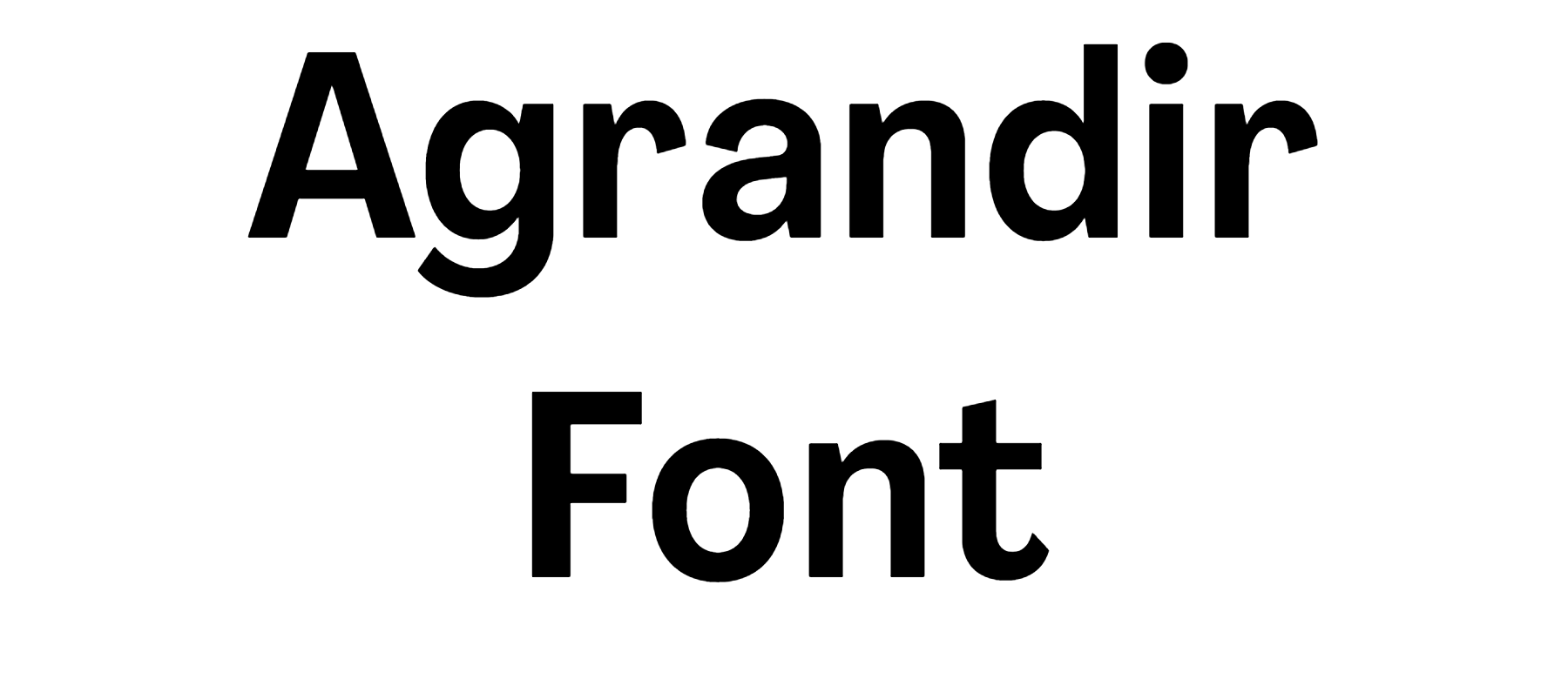
Agrandir Font Family
Agrandir Font Family is a sans serif font created by Alexander Slobzheninov (2018). Simple, open letter shapes keep it easy to read at almost any size, from app buttons to big headlines. The free download includes nine styles, and you can try every one of them with your own text in the preview above.
- Font styles: 9 (Regular, Thin Italic, Wide Light, Grand Light, Text Bold, Wide Black Italic, Grand Heavy, Narrow and Tight)
- Weights: Thin (100) to Black (900)
- Glyphs: 443 in the Regular style
- OpenType features: Contextual alternates, stylistic alternates and 11 stylistic sets
What You Can Type With Agrandir Font Family
With complete upper and lowercase letters and all ten digits, Agrandir Font Family is ready for real wording, not just a single headline. Everyday marks like &, !, ? and @ are there too. Thanks to its accented letters, it also works for Spanish, French, German, Portuguese and Italian, not just English. Of its 443 glyphs, about 99 are not on your keyboard at all. That is where the alternates explained below live.
How to Use the Alternate Letters in Agrandir Font Family
Where Agrandir Font Family Works Best
Agrandir Font Family is a natural fit for websites, app screens and clean logos. It works for headings and body text alike. If the download has several weights, use a heavier one for titles and a lighter one for paragraphs. Because the family has more than one style, you can mix them in a single design for headings, subheadings and highlights.